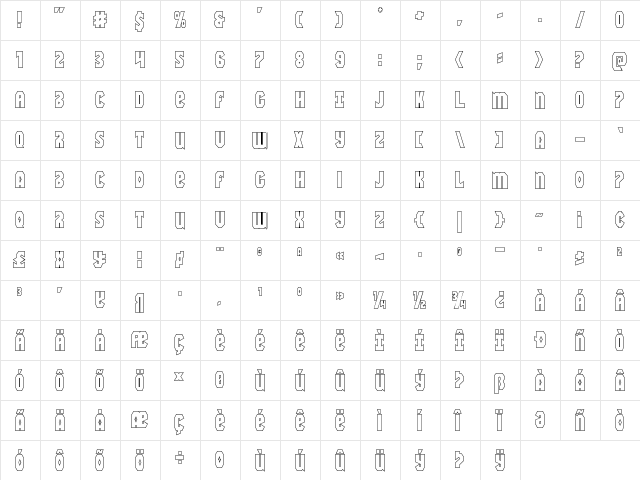
Warrior Nation Outline Regular
Design Context for Warrior Nation Outline Typeface
Warrior Nation Outline brings ornamental detail and strong personality to headlines and identities, where visual impact matters more than quiet functionality.
Font Pairing: Pair with a clean neutral sans-serif for body copy to let Warrior Nation Outline's character lead without overwhelming the composition.
Pro Tip: Use Warrior Nation Outline exclusively at display sizes — it was designed to be seen, not read at length. Let a neutral companion handle body copy.